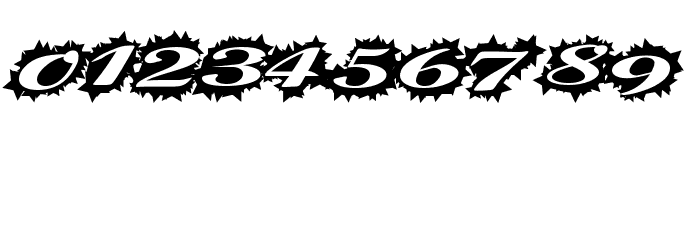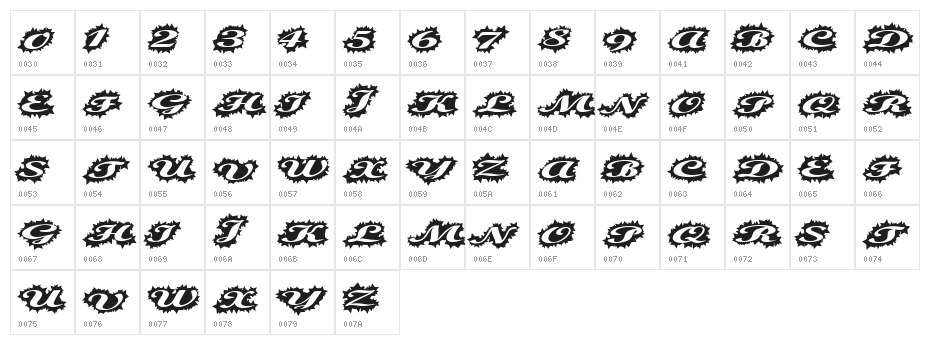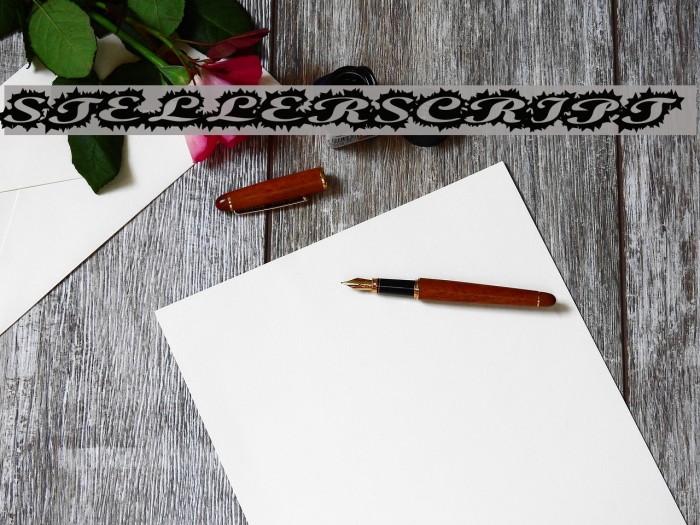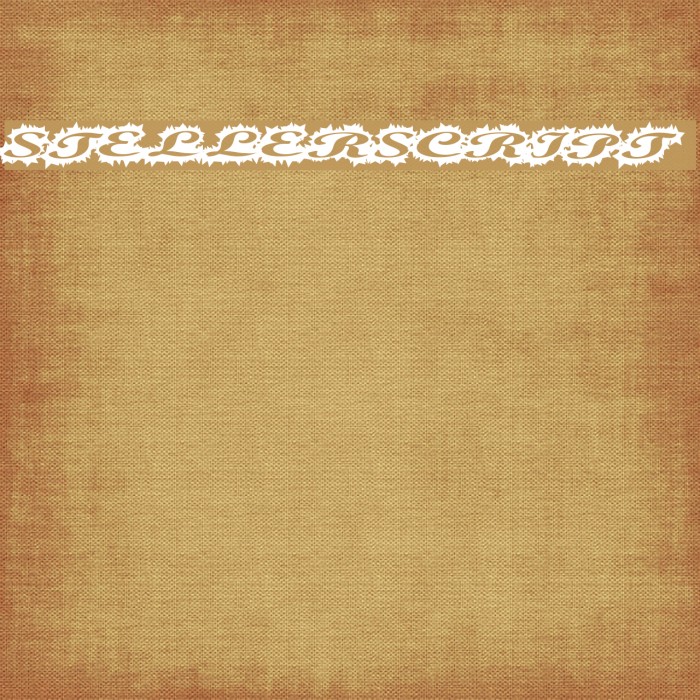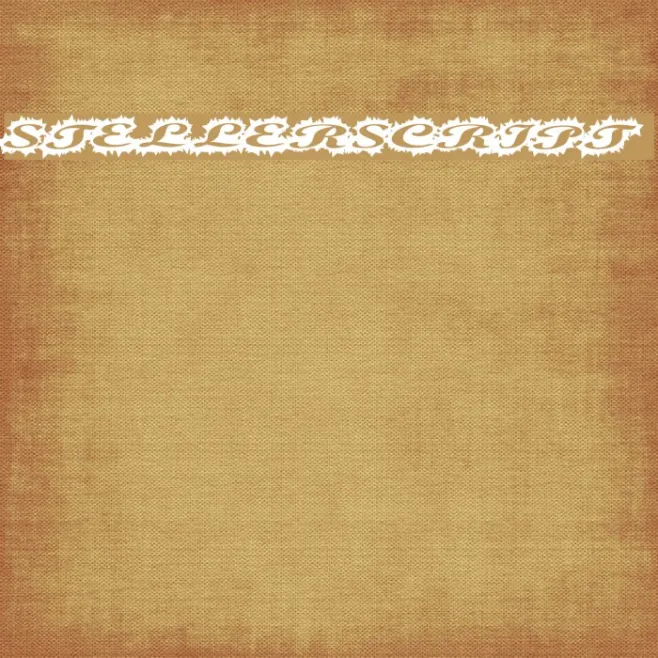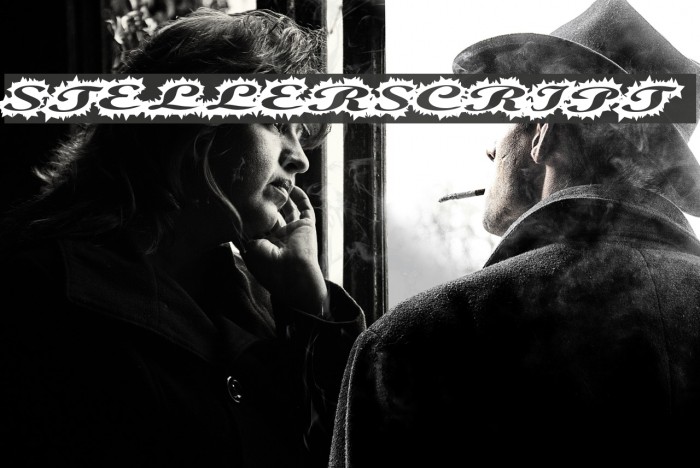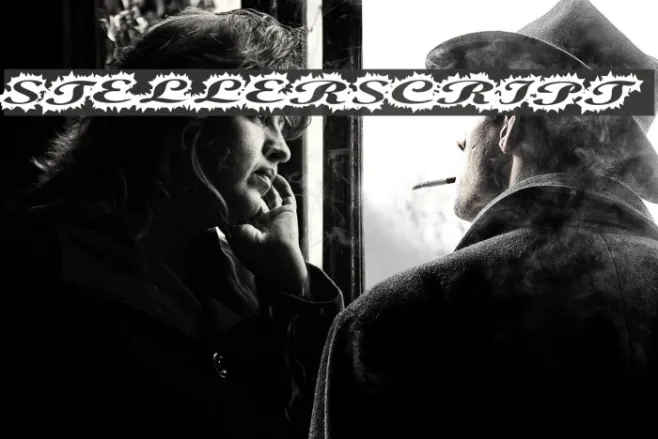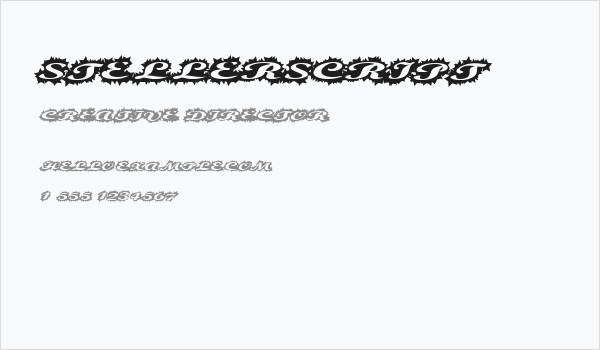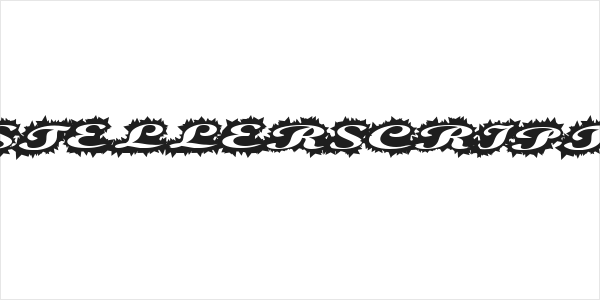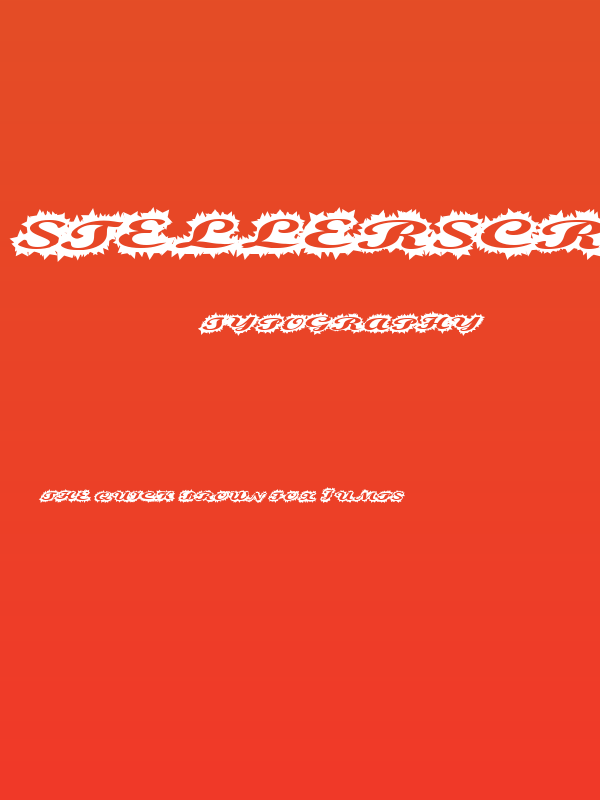
StellerScript Font
StellerScript Description
This font features a bold, dynamic style with sharp, jagged edges that give it a fiery and energetic appearance. The characters are heavily stylized, with each letter and number surrounded by flame-like spikes, creating a sense of movement and intensity. The design is consistent across uppercase and lowercase letters, as well as numbers, maintaining a cohesive look. The font's unique and aggressive style makes it stand out, perfect for projects that require a strong visual impact.
| Proposed Projects | Ideal for use in music album covers, extreme sports branding, video game titles, and event posters that require a bold and energetic aesthetic. |